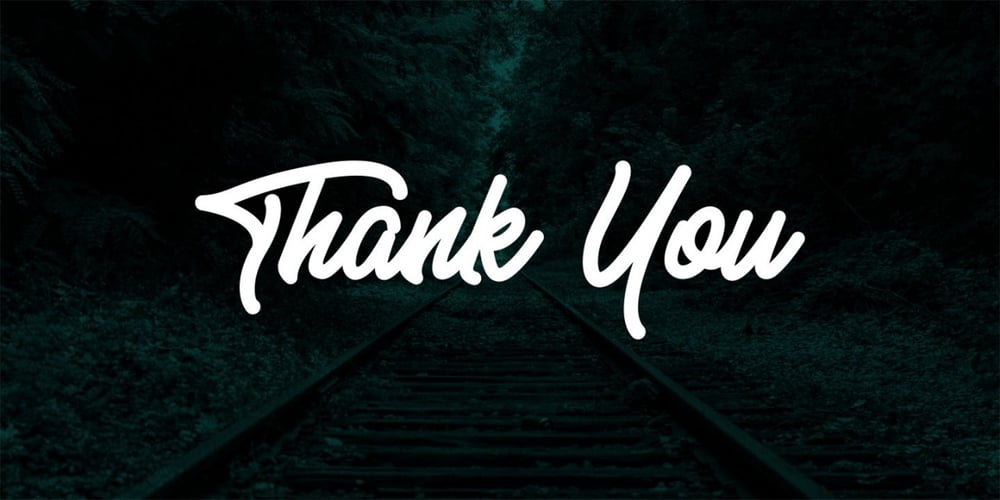
Senella Script Font Family was designed by Ilhamsyah Vutra and published by Aktab Studio. Senella Script contains 1 styles and family package options. Senella is a script font with more than 350 characters and covers several languages based on the Latin alphabet; the whole font design has also been completed with extensive alternates, ligatures and swashes sets. Senella is suitable for any design project, vintage, fashion, branding, print design and whatever design you want Thank you for visits and happy branding !